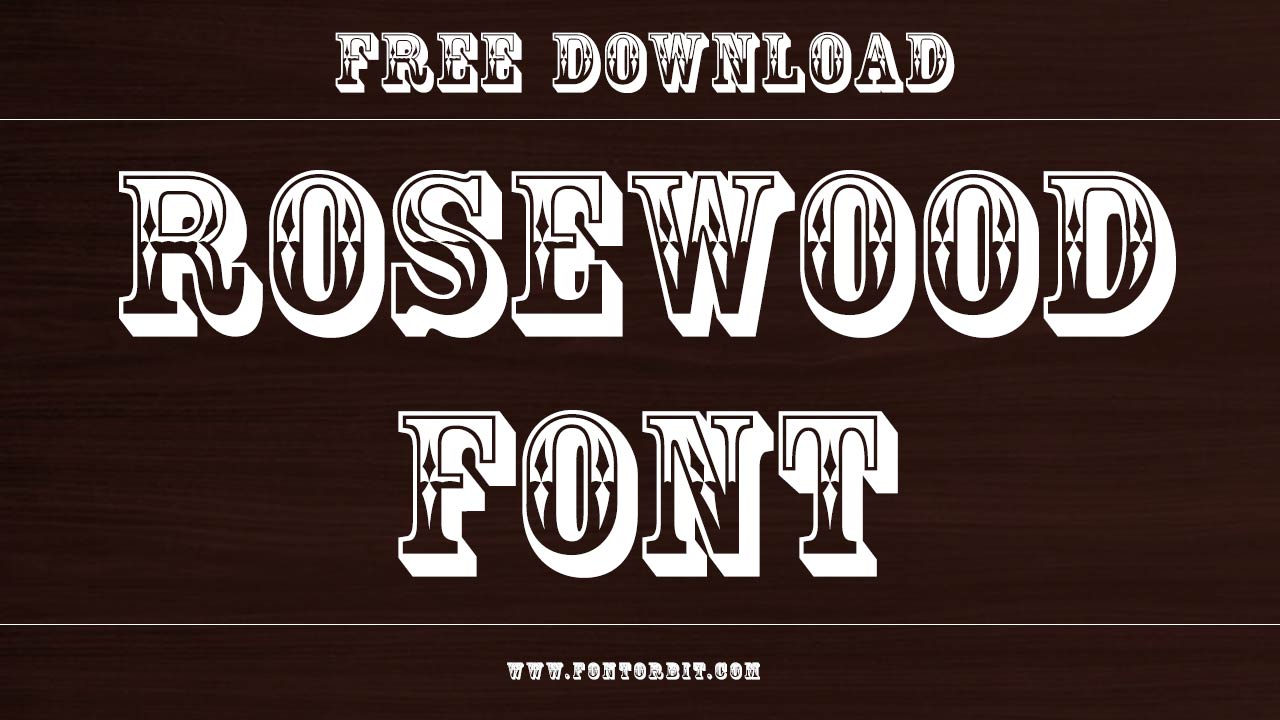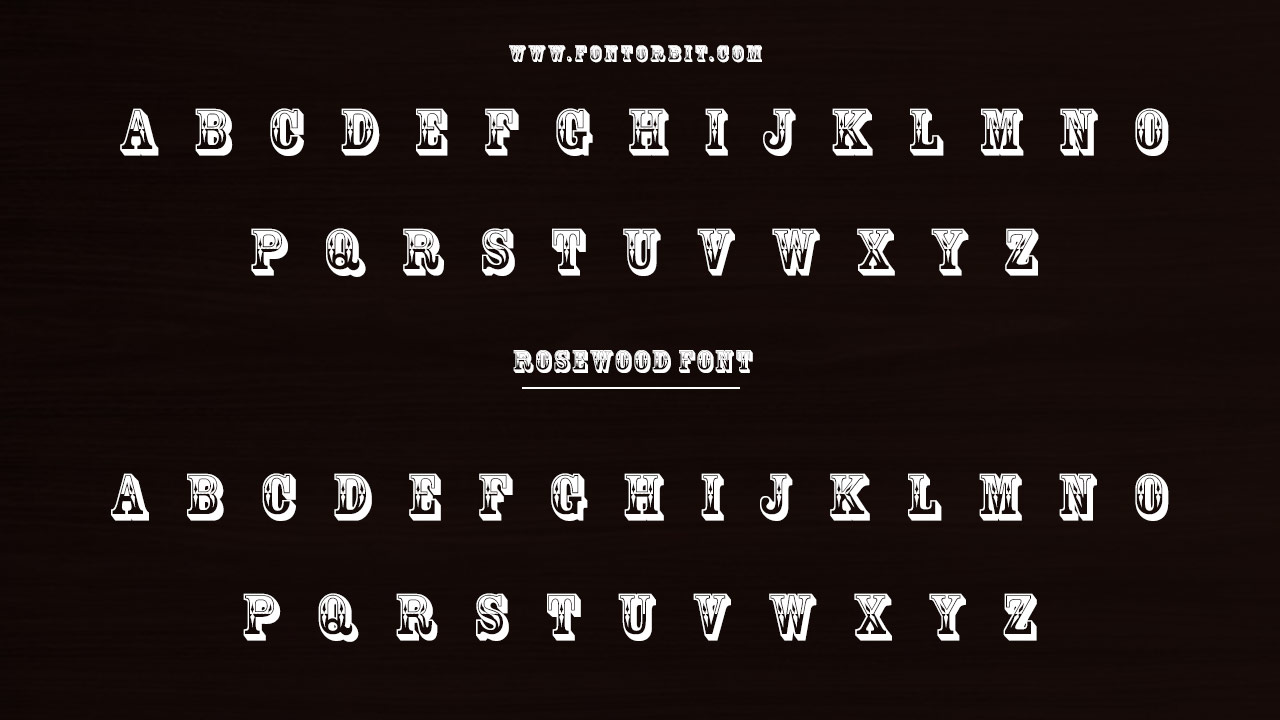
The Rosewood Font is a decorative slab-serif typeface created by Carl Crossgrove, Carol Twombly, and Kim Buker Chansler for Adobe Originals. It features a unique bicolor design that gives it a vintage feel inspired by the 19th century. This font is widely used for headlines, posters, and projects with a Western or retro theme.
Types In The Rosewood Font Family
The Rosewood Font is a decorative serif typeface> It’s for its intricate details that mimic woodcut engravings, giving it a bold and vintage charm. Its layered design adds depth and a dimensional feel to the text. Inspired by old-fashioned signage, posters, and wild-west themes, the font is perfect for vintage or theatrical projects. It is available in TTF (TrueType Font) and OTF (OpenType Font) formats, ensuring broad compatibility with design tools.
- Rosewood Std Regular
- Rosewood Std Fill
Rosewood Std Regular is the primary style, and Rosewood Std Fill is used for overlaying colors to create vibrant, multicolored typography.
Using Occasions Of The Rosewood Font
- Posters and Headlines: Ideal for bold statements.
- Logo Design: Perfect for branding projects requiring a vintage or Western vibe.
- Packaging: Excellent for product labels with a rustic or decorative touch.
- Event Promotions: Perfect for festivals or themed events.
- Themed Projects: Works well in retro, saloon, or Wild West-inspired designs.
Best Practices For Using Rosewood Font
- Pairing: Combine Rosewood with simple sans-serif fonts like Helvetica or Arial to balance its decorative style.
- Spacing: Use ample spacing to allow its intricate details to stand out.
- Layering: Experiment with the Rosewood Fill variant to add unique colors or shadows for a layered effect.
These fonts share similar characteristics, making them great alternatives or complements to Rosewood.
The Rosewood Font Family combines elegance with bold ornamental charm, making it a versatile choice for creative projects. Its decorative slab-serif style, coupled with the option for multicolored designs, ensures it stands out in any application. Whether you’re creating logos, event posters, or packaging, Rosewood delivers a timeless and distinctive touch.
1.What Is The Rosewood Font?
The Rosewood Font is a decorative slab serif font with a unique bicolor design, often used in Western-themed designs and retro-inspired projects. It features bold, impactful letterforms that stand out in creative compositions.
2.Who Created The Rosewood Font?
The font was designed by Carl Crossgrove, Carol Twombly, and Kim Buker Chansler, and published under the Adobe Originals collection.
3.What Makes Rosewood Unique?
Rosewood stands out for its two complementary styles, Rosewood Std Regular and Rosewood Fill, which allow users to create multicolored typography. Its Western-inspired aesthetic makes it ideal for projects with vintage or thematic elements.
4.What Projects Is Rosewood Font Best Suited For?
Rosewood is perfect for logo design, posters, packaging, and any projects requiring a bold, decorative, and eye-catching typeface.
6.What Are Similar Fonts To Rosewood?
Fonts like Zebrawood™ Std, Mariachi, Country Western, and Trend Rough share design similarities with Rosewood. These popular fonts also work well in Western-themed or vintage designs.
7.Is Rosewood Suitable For Modern Projects?
Although Rosewood has a vintage aesthetic, it can be adapted to modern fonts and design projects when paired with clean sans serif fonts or complementary color palettes.